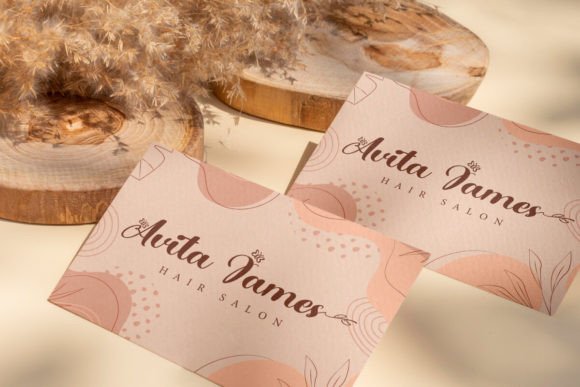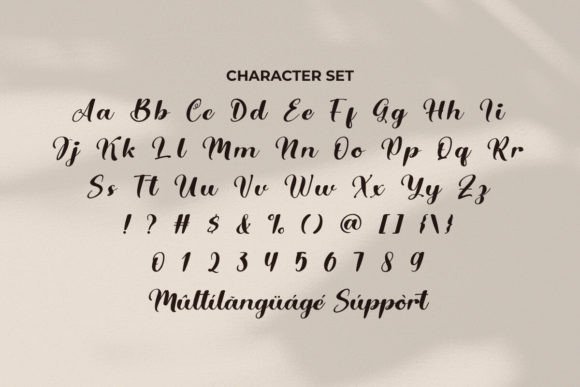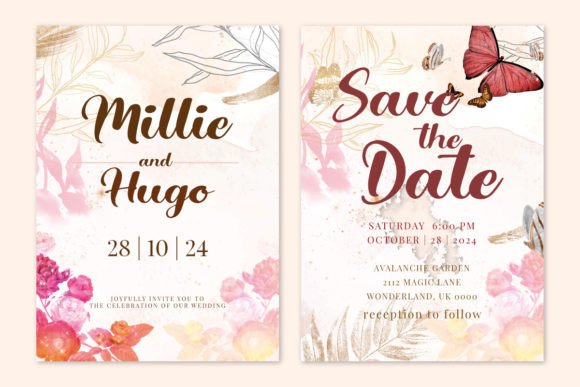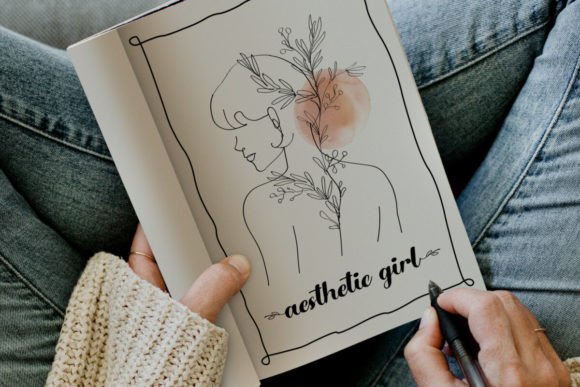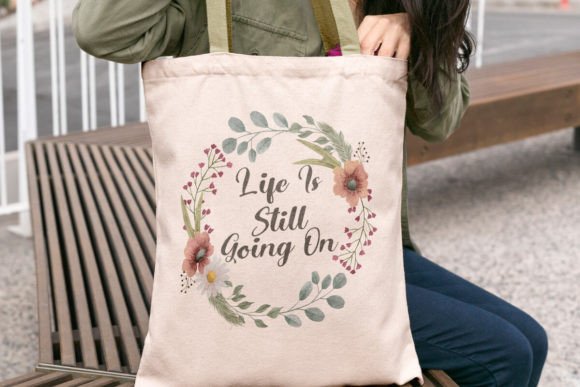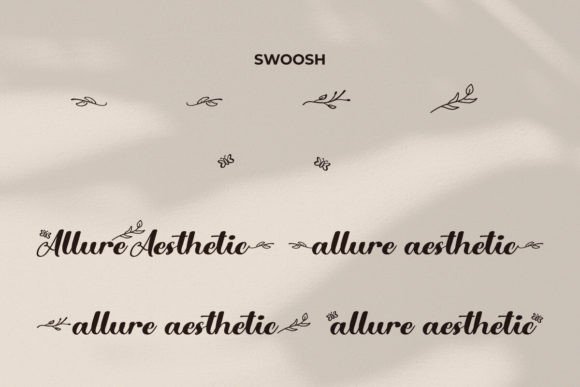
Introducing Allure Aesthetic Font: Elevate Your Designs with a Touch of Whimsy
In the world of design, fonts play a crucial role in conveying the tone and personality of a brand or artwork. If you’re a designer or crafter looking for a unique and eye-catching font to add a touch of whimsy to your creations, look no further than Allure Aesthetic Font. Developed by CalligraphyFonts, this beautifully decorated script font is sure to bring any design to life.
What is Allure Aesthetic Font?
Allure Aesthetic Font is a cutely decorated script font that boasts a fun and aesthetic appearance on each letter. Its unique and playful design makes it perfect for a wide range of applications, from artwork and billboards to brand logos and business cards. With Allure Aesthetic Font, you can add a personal touch to your designs and make them stand out from the crowd.
Features of Allure Aesthetic Font
So, what makes Allure Aesthetic Font so special? Here are just a few of its key features:
- Unique and Playful Design: Each letter in Allure Aesthetic Font is carefully crafted to create a fun and whimsical appearance.
- Highly Versatile: This font can be used for a wide range of applications, from digital designs to print materials.
- Easily Readable: Despite its decorative nature, Allure Aesthetic Font remains easily readable, making it perfect for use in titles, headings, and more.
Uses for Allure Aesthetic Font
The possibilities are endless when it comes to using Allure Aesthetic Font. Here are just a few ideas to get you started:
- Artwork: Add a touch of personality to your artwork with Allure Aesthetic Font.
- Billboards: Make your billboards stand out with this eye-catching font.
- Brand Logos: Create a unique and memorable brand logo with Allure Aesthetic Font.
- Business Cards: Add a touch of whimsy to your business cards and make them more memorable.
- Invitations: Create beautiful and eye-catching invitations for special occasions.
- Labels: Use Allure Aesthetic Font to create labels that stand out on products or packaging.
- Packaging Design: Add a personal touch to your packaging design with this unique font.
- Posters: Create eye-catching posters that grab attention with Allure Aesthetic Font.
- Price Tags: Make your price tags more visually appealing with this decorative font.
- Screen Printing: Use Allure Aesthetic Font for screen printing designs on t-shirts, hoodies, and more.
- Websites: Add a touch of personality to your website with Allure Aesthetic Font.
- Titles: Use this font to create eye-catching titles for books, movies, and more.
Why Choose Allure Aesthetic Font?
With so many fonts available, why choose Allure Aesthetic Font? Here are just a few reasons:
- Unique Design: Allure Aesthetic Font offers a unique and playful design that will set your designs apart.
- High-Quality: This font is developed by CalligraphyFonts, ensuring a high-quality design that will look great in any application.
- Easily Customizable: Allure Aesthetic Font can be easily customized to fit your design needs.